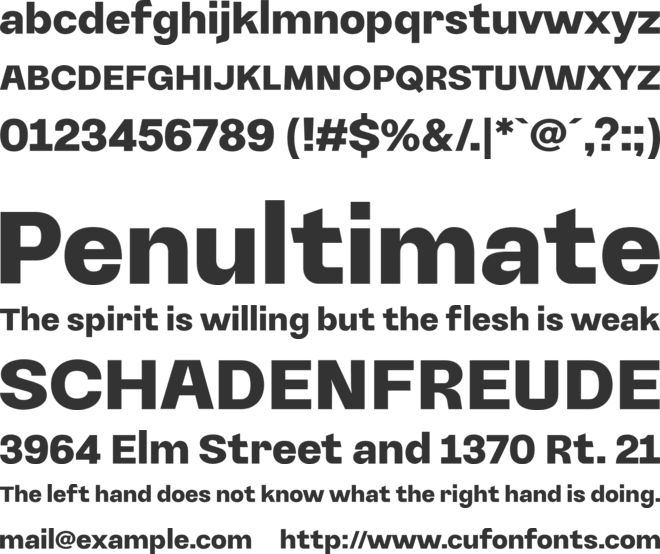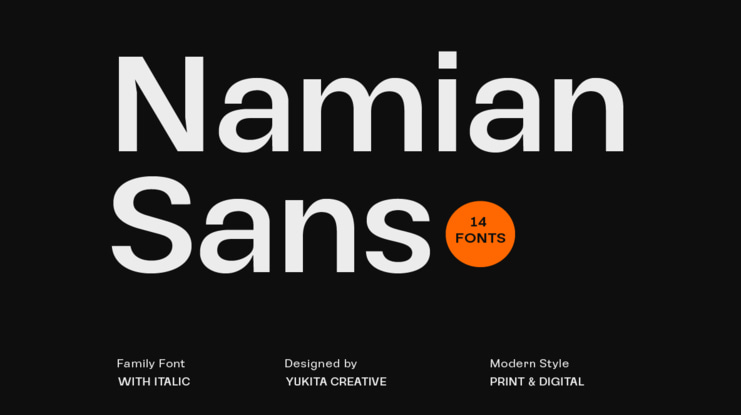
Namian Font Family
By Abdul Artega, Yukita Creative
Namian Sans Serif is the perfect choice for your modern design projects. This versatile font family includes 7 distinct weights, ranging from Light to Black, providing exceptional flexibility for various design needs. Each weight is meticulously crafted to deliver a clean and elegant look. Whether for long texts or striking headlines, Namian Sans Serif ensures high readability and an appealing aesthetic.
Key Features of Namian Sans Serif: 1. Seven Different Weights: From Light to Black, offering a wide range of typographic variations. 2. High Readability: Designed for maximum clarity at any text size. 3. Modern Aesthetic: Clean and elegant appearance, ideal for contemporary designs. 4. Multilingual Support: Includes characters for various languages, including special glyphs. 5. Design Flexibility: Perfect for long texts, headlines, branding, and more. 6. Screen Optimization: Crafted to look perfect on all screen resolutions, both print and digital.